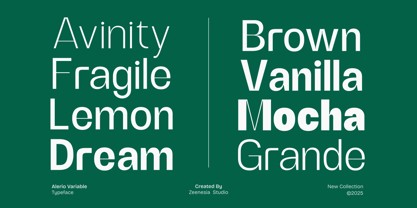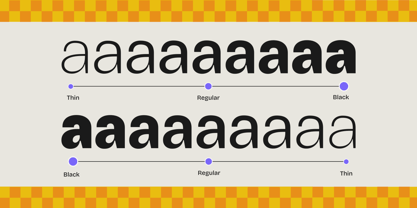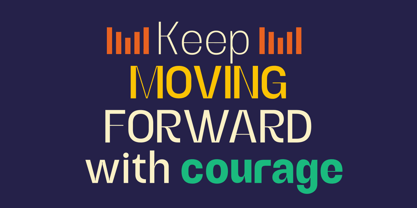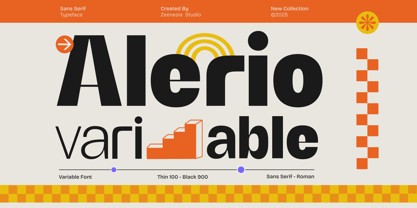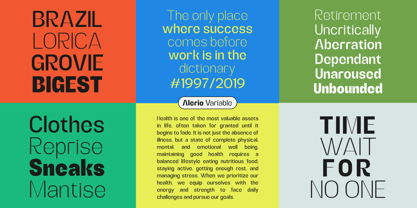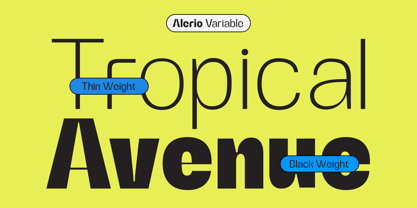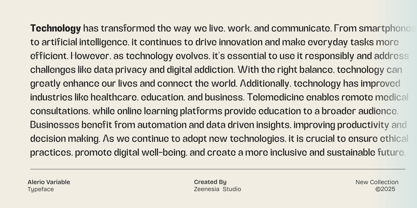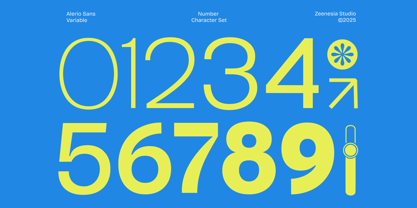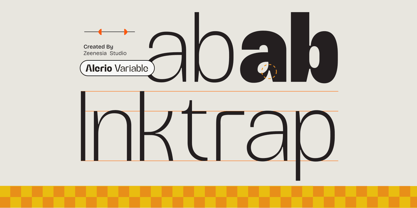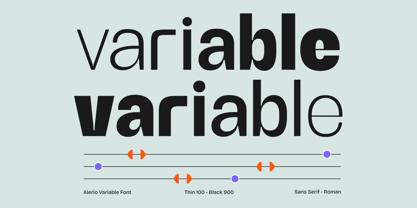
Zn Alerio Variable
by Zeenesia Studio
The Zn Alerio Variable Font Family was designed by Doni Purwoko and published by Zeenesia Studio. Zn Alerio Variable contains 1 styles.
Alerio – Variable Font
Say hello to Alerio – A modern sans serif that’s bold, flexible, and full of fun! Alerio is a bold and versatile sans serif typeface designed to bring clarity, strength, and modern charm to any design. With a full range of weights from Thin to Black, Alerio adapts seamlessly to different creative needs—whether for branding, editorial design, digital interfaces, or striking display headlines.
Designers: Doni Purwoko
Publisher: Zeenesia Studio
Foundry: Zeenesia Studio